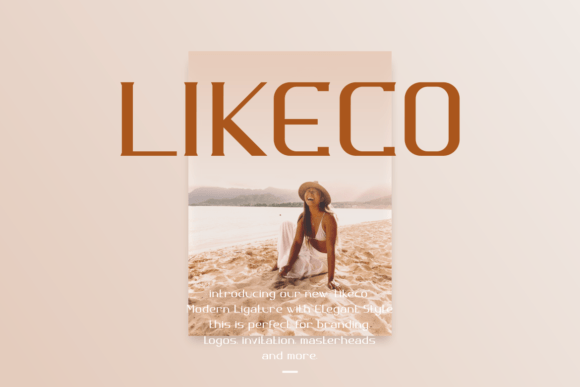
Introduction to Likeco Font
Have you ever been working on a creative project, pouring your heart and soul into every detail, and then suddenly, the perfect font pops up, elevating your entire design? That’s exactly what happened when we discovered the Likeco Font. This cool and unique serif font is a game-changer for designers, offering a level of sophistication and elegance that’s hard to find.
With its neatly crafted and highly detailed design, the Likeco Font is a valuable addition to any design library. Whether you’re working on a website, a brochure, or a social media campaign, this font has the potential to take your design to the next level.
Key Features of Likeco Font
- High-quality design for creative projects: The Likeco Font is designed to provide a unique and stylish look for various design projects, making it a valuable resource for designers.
- Transparent background: The font features a transparent background, allowing designers to easily integrate it with other design elements and create a seamless visual experience.
- High-resolution design: The Likeco Font is designed with high resolution in mind, making it suitable for use in both print and digital design projects.
- Unique and creative typography: The font’s unique design and style make it an ideal choice for designers looking to add a touch of creativity and personality to their projects.
Honest Review: Likeco Font
As a designer, I’m always on the lookout for high-quality fonts that can elevate my creative projects. The Likeco Font is one such discovery that I’d like to share with you.
- Transparency: The Likeco Font has a beautiful transparent background, making it perfect for overlaying on images or backgrounds.
- Design versatility: The Likeco Font is incredibly versatile and can be used in a variety of design projects, from logos to graphics and more.
- Limited character set: The Likeco Font has a limited character set, which may not be ideal for designers who need a wide range of characters.
- Not suitable for small text: The font may not be the best choice for small text, as it can be difficult to read.
Overall, the Likeco Font is a great addition to any designer’s toolkit. While it has some limitations, its high quality and versatility make it a valuable design resource. I’d definitely recommend it for creative projects that require a unique and eye-catching font.
Common Use Cases for Likeco Font
Likeco Font is suitable for a variety of design projects, including social media graphics, presentations, and documents. Its transparent background feature makes it ideal for layered designs, while its high-quality design ensures that it stands out in any project.